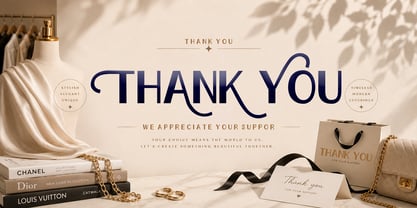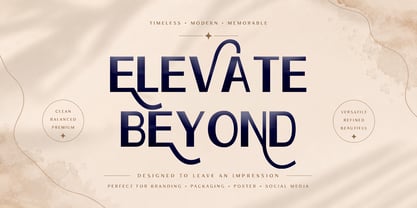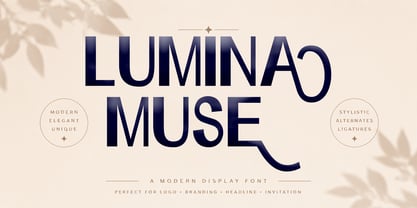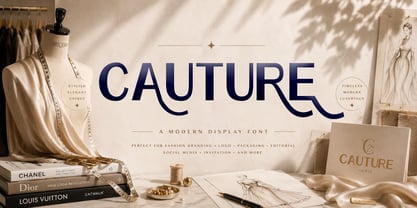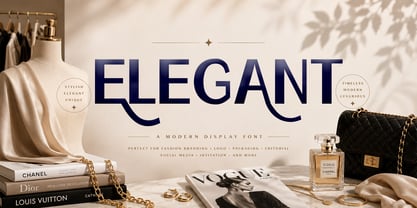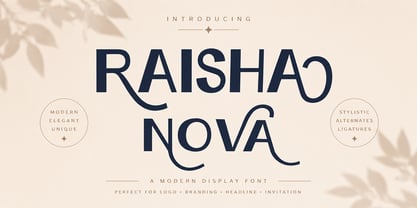
Raisha Nova
von Shape Studio
Die Schriftfamilie Raisha Nova wurde von Teuku Saifullah entworfen und von Shape Studio veröffentlicht. Raisha Nova enthält 5 Stile und Familienpaketoptionen. Mehr über diese Familie
Raisha Nova aesthetic features include the lack of contrast in lighter weights, strict geometric forms, and minimalism intended for clarity. Despite its constructivist rigor, the typeface echoes the Roman capital style that has remained relevant to this day. Raisha Nova continues to be valued in its digital form for its simplicity and refined shapes.
Designer: Teuku Saifullah
Foundry: Shape Studio